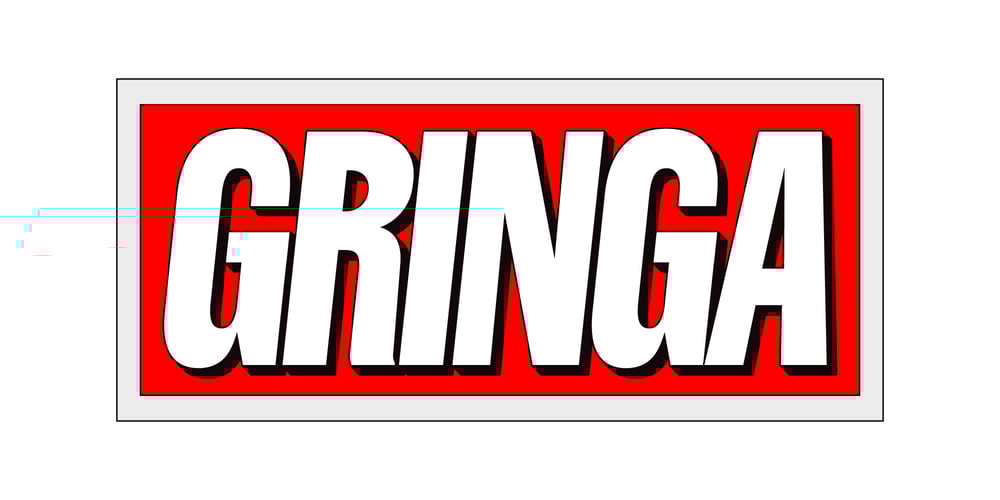
Gringa Font Family was designed by Gaspar Muñoz and published by Gspr one. Gringa contains 21 styles and family package options. Gringa is a condensed grotesque typeface inspired by the classic designs of the Stephenson Blake series, but with a more geometric approach and a clean, modern style. Its curves are more refined, and the counterforms are meticulously crafted. The name “Gringa” references the prevalent use of this typographic style in the United States during the 19th century.